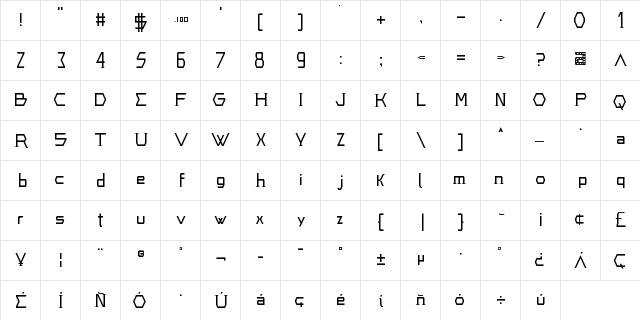
Greek Regular
Design Context for Greek Typeface
Greek is a composed and adaptable typeface that performs quietly and consistently across a wide range of design contexts.